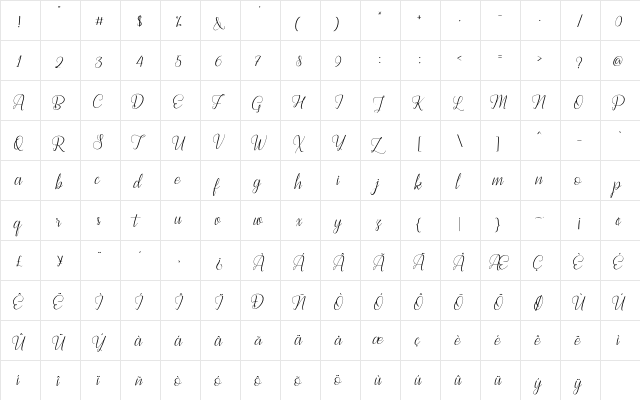
Bestilla Script Regular
| Foundry | Ijemrockart_Ferdiansyah |
| Designer | Ijemrockart_Ferdiansyah |
Design Context for Bestilla Script Typeface
Bestilla Script flows with the natural rhythm of handwritten lettering, making it ideal for designs that call for warmth and personal expression.
Font Pairing: Combine Bestilla Script with a simple geometric sans for maximum contrast — the tension between flowing curves and clean structure is a classic typographic pairing.
Pro Tip: Use Bestilla Script for short runs of text — names, titles, or taglines. Extended body copy in script faces tires the eye quickly.